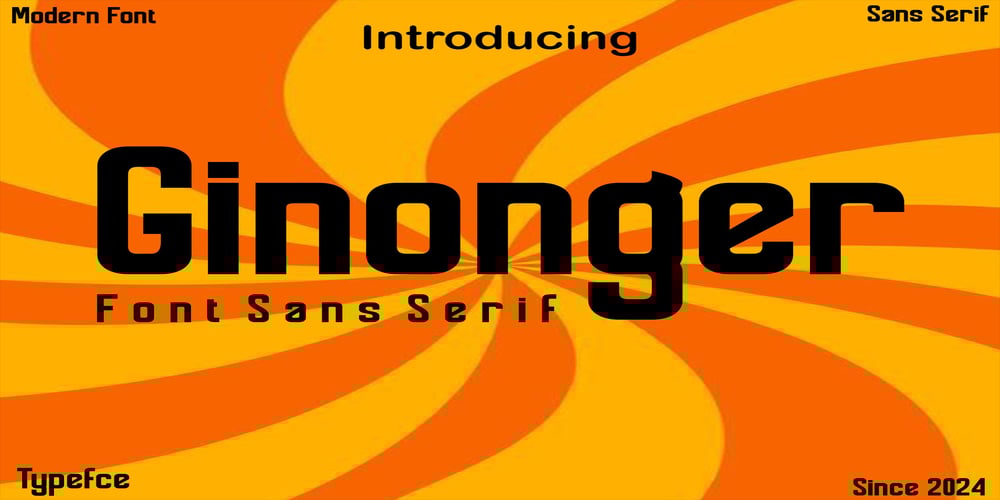
Ginerger
Ginerger font
Ginerger Font Family was designed by Canden Meutuah and published by Canden Meutuah. Ginerger contains 1 styles and family package options. this is a simple and elegant serif font full of modern style.This font is very suitable for you to use for many purposes such as branding, logos, wedding designs, social media posts, advertising, product packaging, product design, labels, photography, watermarks, invitations, stationery, and any project.This font is complete in many other languages.you will not be disappointed with the results.thank you